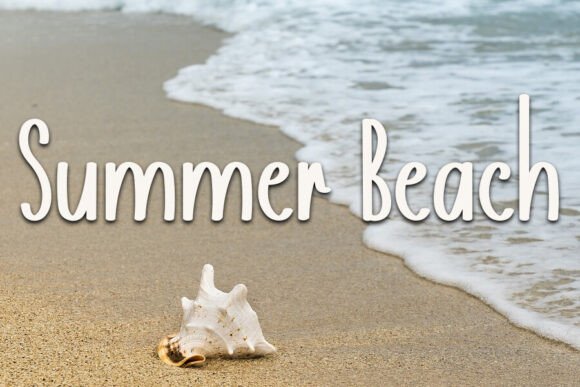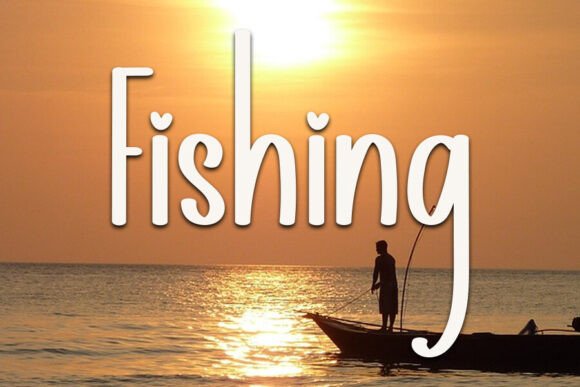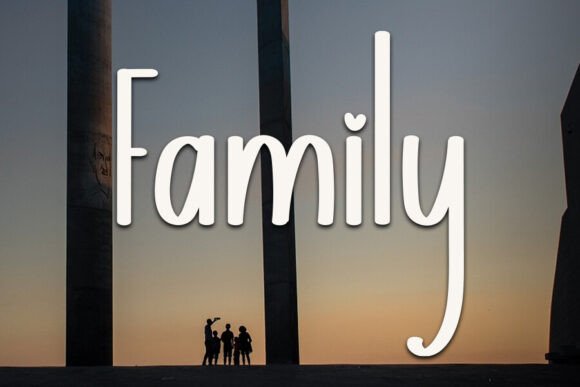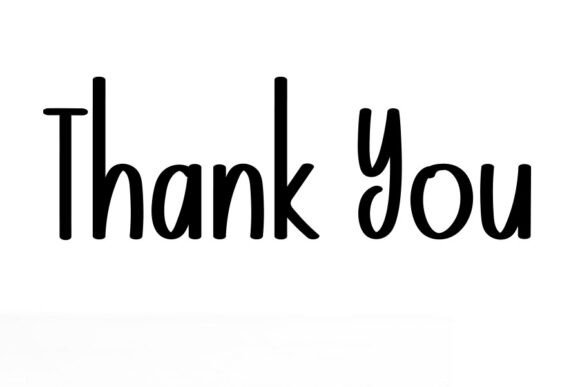
Adding a Personal Touch with Ballpoint Font
Remember the moment when you first fell in love with the handwritten notes of a close friend or family member? There’s something special about the imperfections and uniqueness that comes with a handwritten touch. As designers, we’re always on the lookout for ways to add that personal feel to our projects. That’s where Ballpoint Font comes in – a simple yet versatile font that’s guaranteed to bring a natural and effortless charm to your next project.
Whether you’re working on a greeting card, a social media campaign, or even a headline, Ballpoint Font is an excellent choice. Its wide range of applications makes it a valuable addition to any designer’s toolkit. With Ballpoint Font, you can add a touch of personality and whimsy to your work, making it stand out in a world of digital noise.
Ballpoint Font Key Features
- Font Family: Ballpoint Font is a sans-serif typeface designed for digital use. It is available in multiple font styles, including regular, bold, italic, and bold italic.
- Character Set: Ballpoint Font supports a wide range of languages, including Latin, Cyrillic, and Greek scripts, with over 2000 characters in its character set.
- Unique Characteristics: The font’s distinctive rounded edges and subtle texture give it a unique, hand-written feel that sets it apart from other sans-serif fonts.
Designer Review: Ballpoint Font
Overall, I’m quite impressed with the Ballpoint Font, but it’s not without its quirks. Let’s dive into what works well and what doesn’t.
- Smooth lines and curves: The Ballpoint Font boasts beautiful, flowing lines that make it perfect for creating visually appealing typography.
- Clean and minimalist aesthetic: The font’s simplicity makes it an excellent choice for modern designs that require a clean and uncluttered look.
- Wide range of styles: The font comes in various weights and styles, offering a lot of flexibility for designers to experiment with.
- Limited character set: The Ballpoint Font’s character set is somewhat limited, which may cause issues when working with languages that require a wide range of characters.
- Not ideal for body text: While the font is great for headings and titles, it may not be the best choice for body text due to its lack of legibility at smaller font sizes.
Overall, I’d say the Ballpoint Font is a solid choice for designers who need a clean and modern font for their projects. While it has some limitations, its strengths make it a great addition to any design arsenal.
Experiment with different font sizes and styles to achieve a unique look. Combine Ballpoint Font with other fonts or graphics to create visually appealing designs. Use the font to add a touch of nostalgia or retro flair to your projects.
Ballpoint Font is ideal for creating retro-themed designs, such as posters, flyers, or social media graphics. It’s also great for adding a personal touch to invitations, greeting cards, or other stationery items. Use the font to create custom logos, watermarks, or typography-based designs.